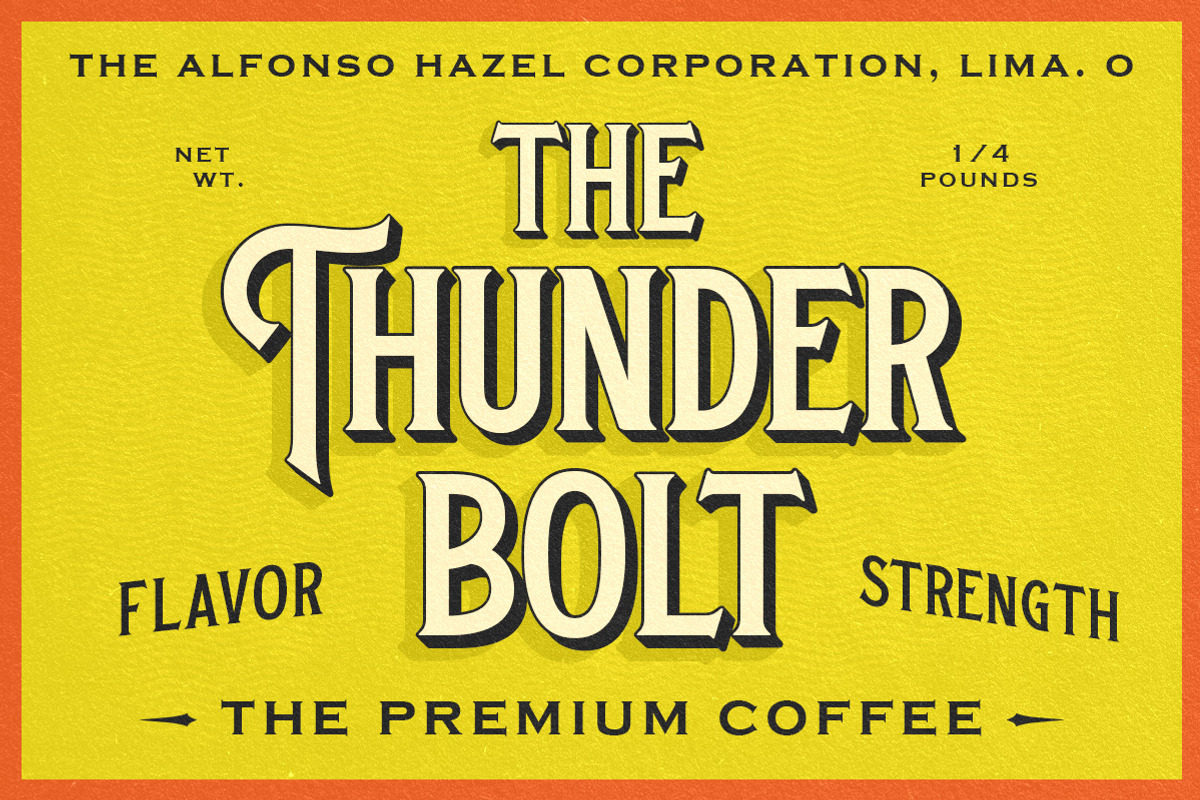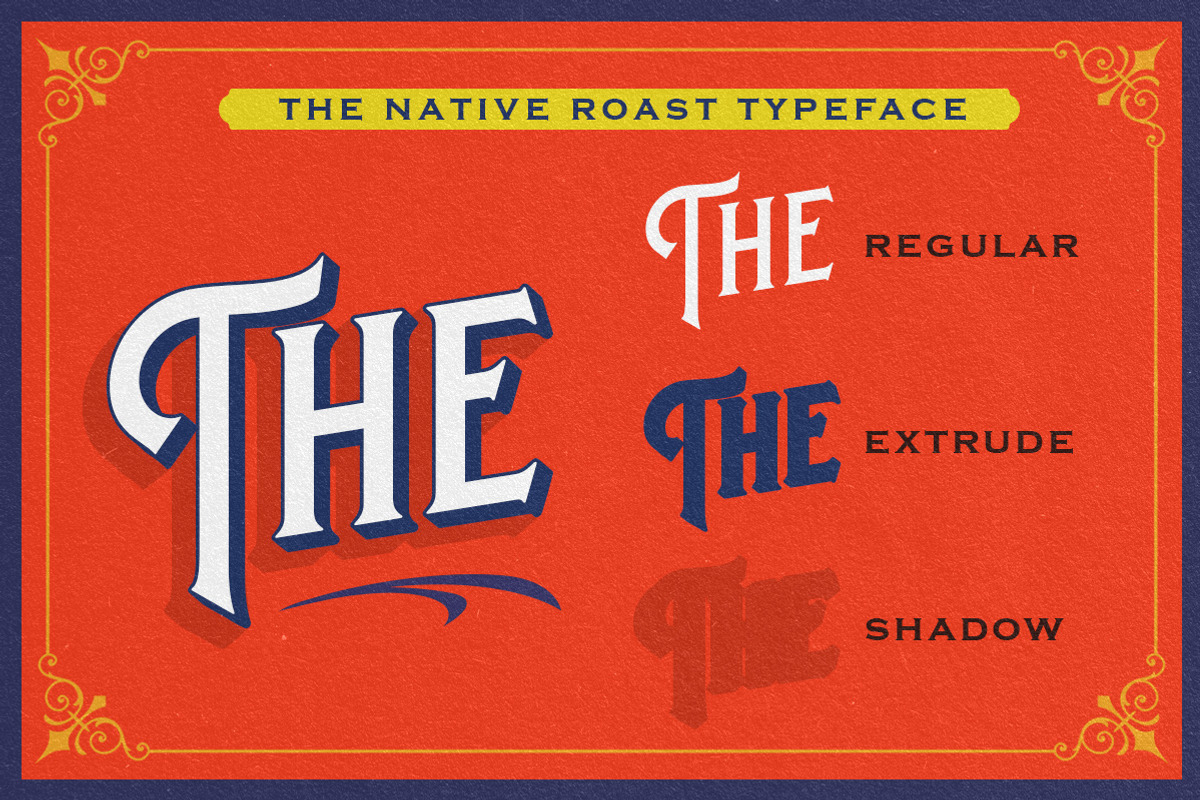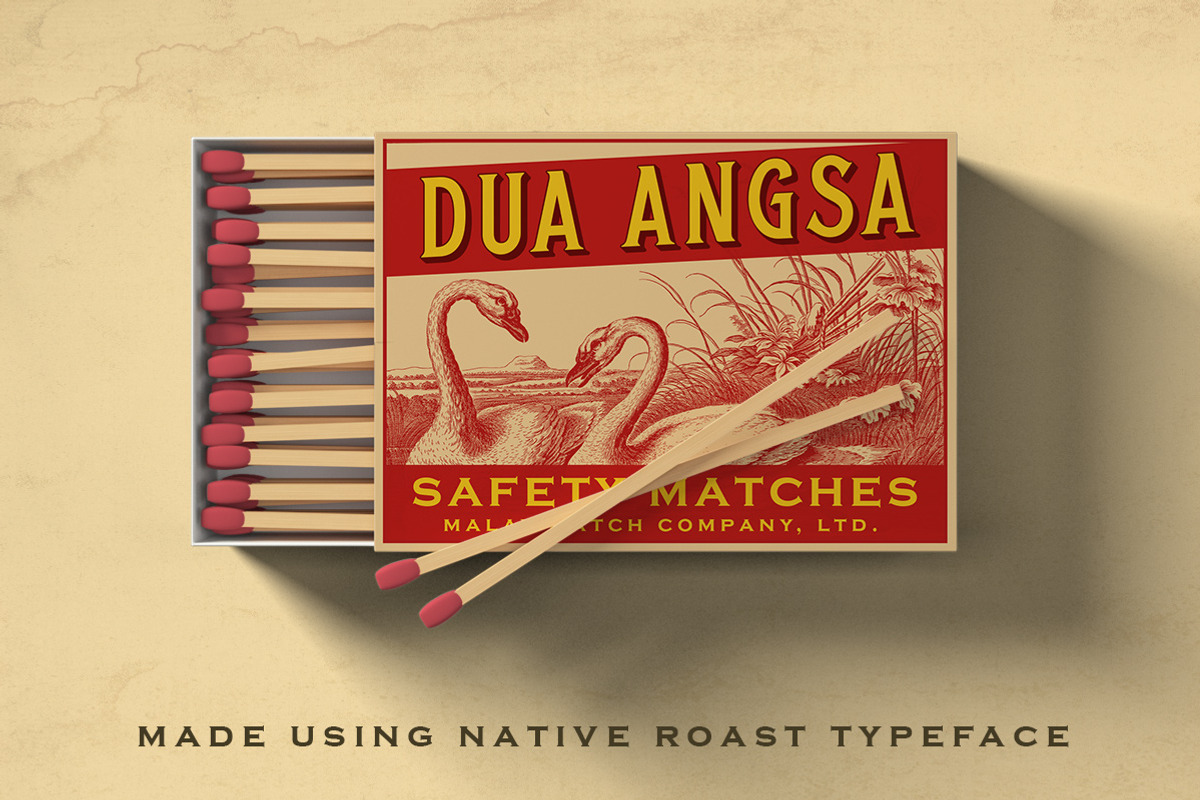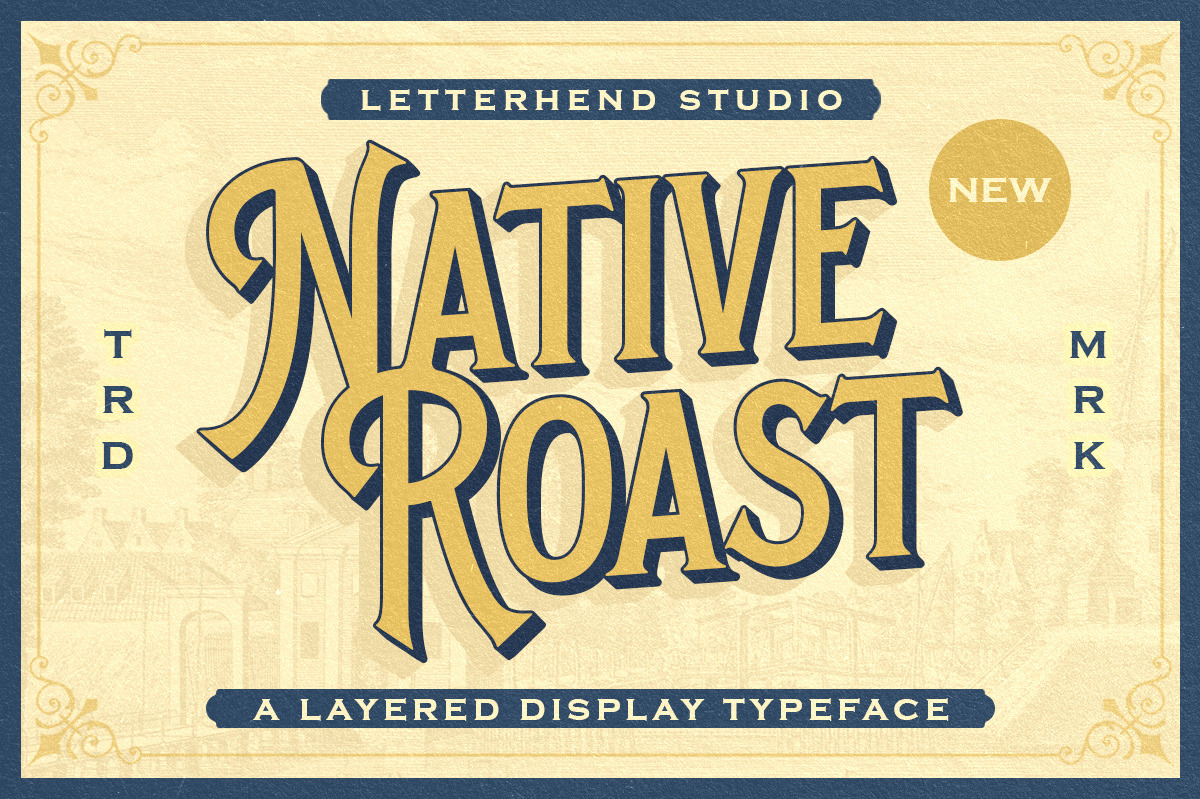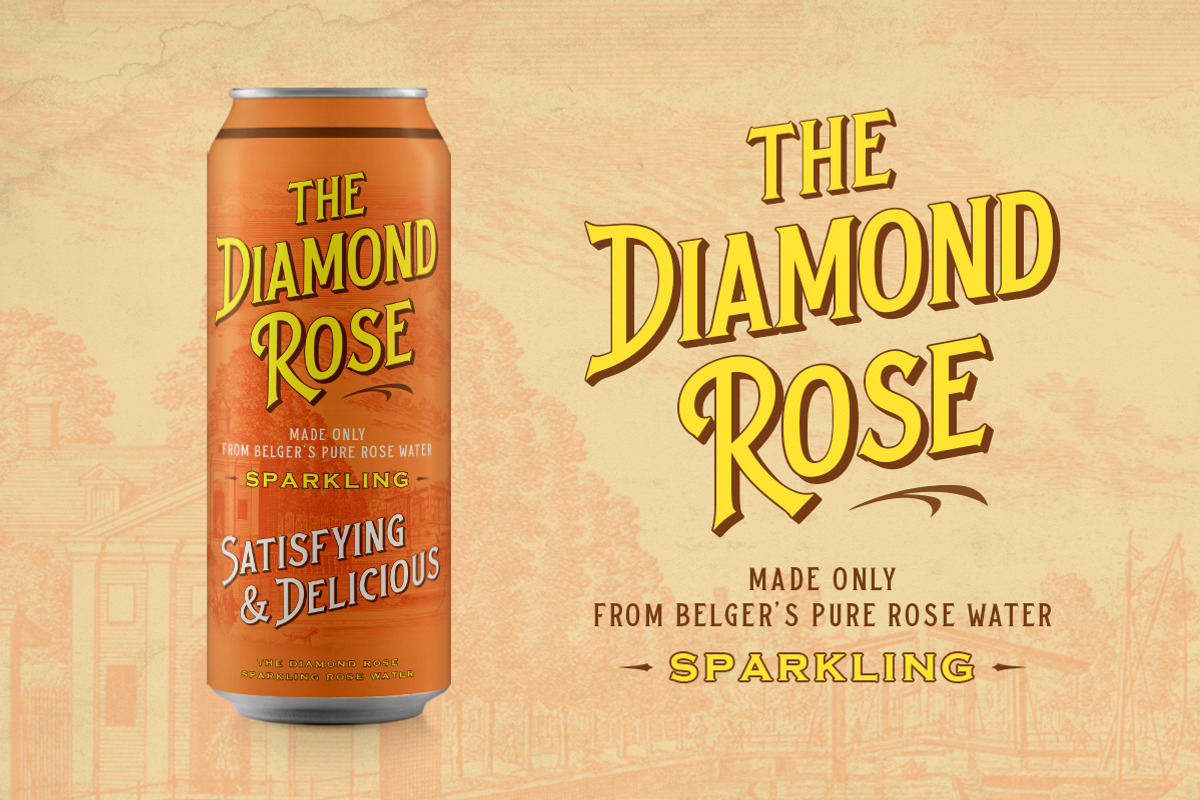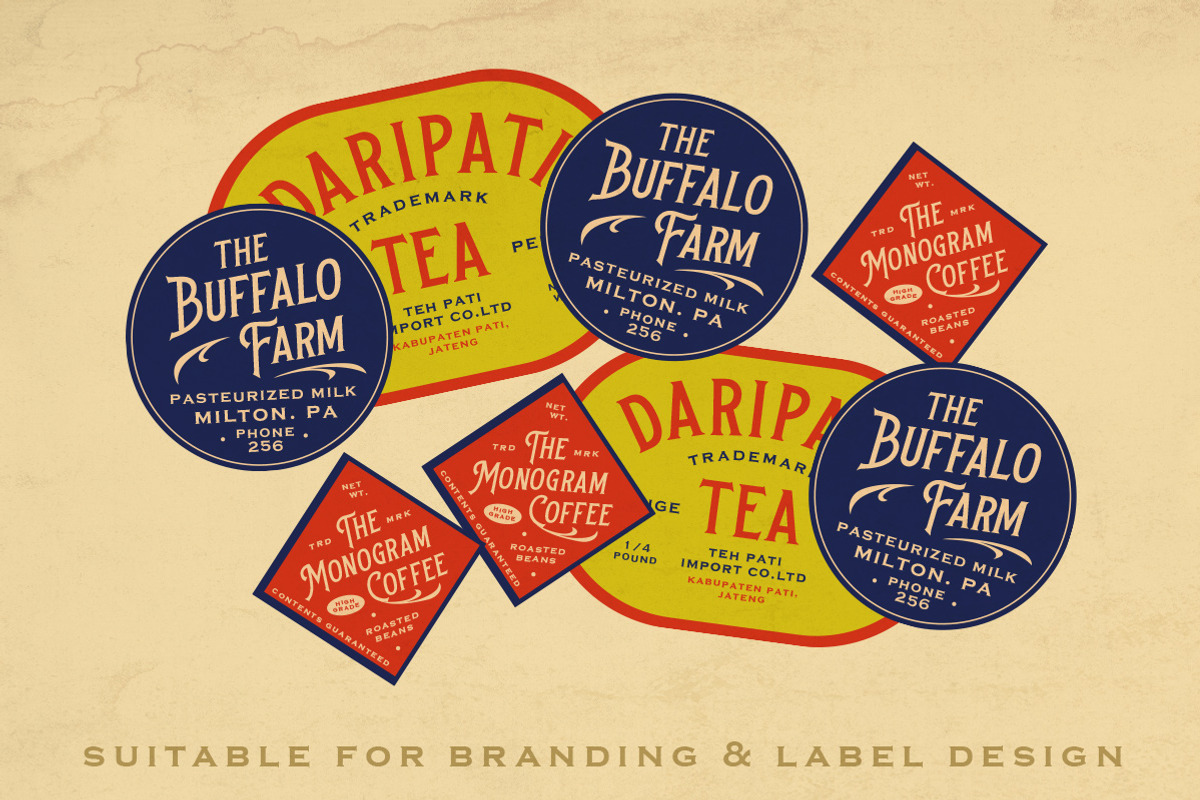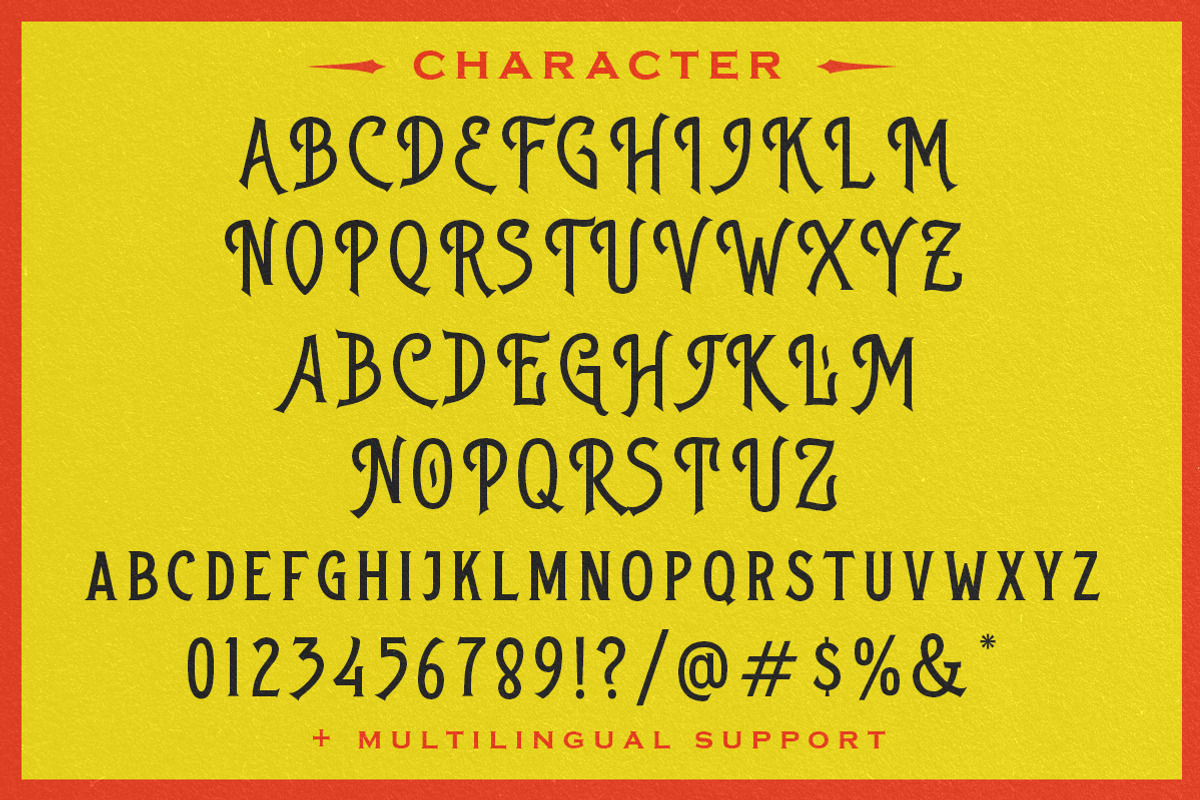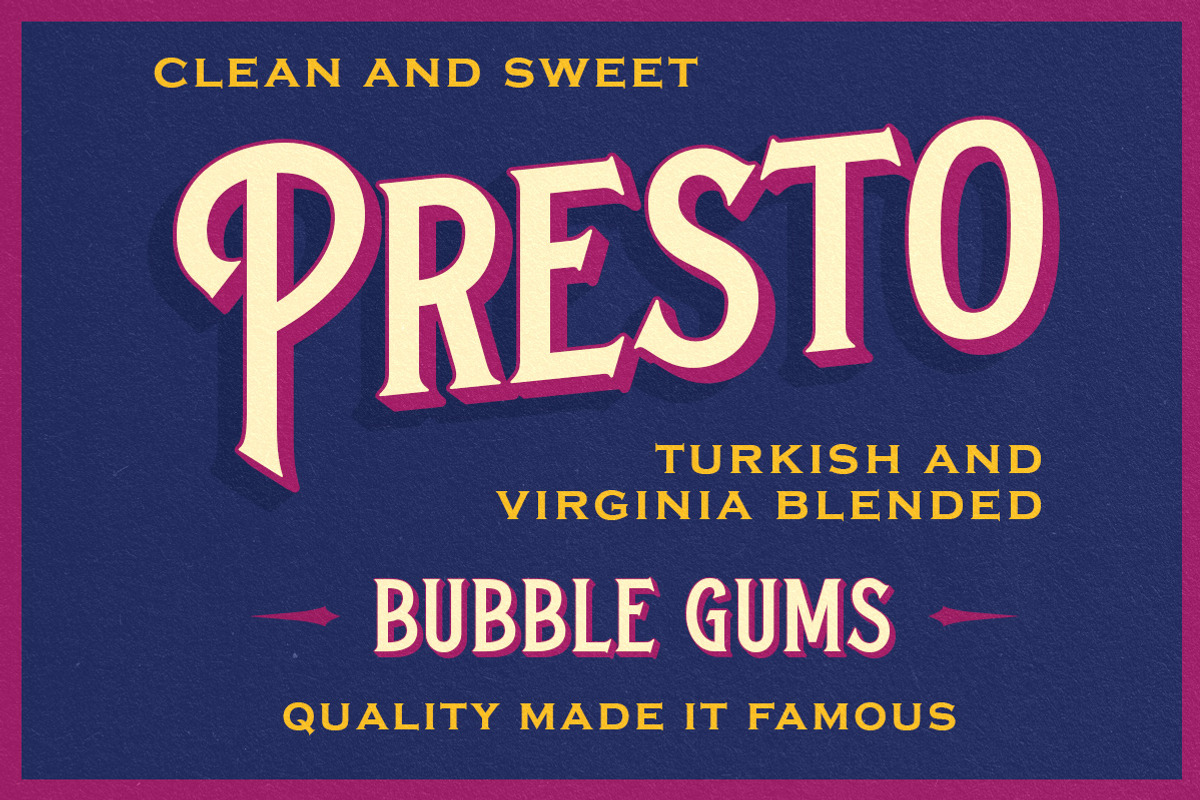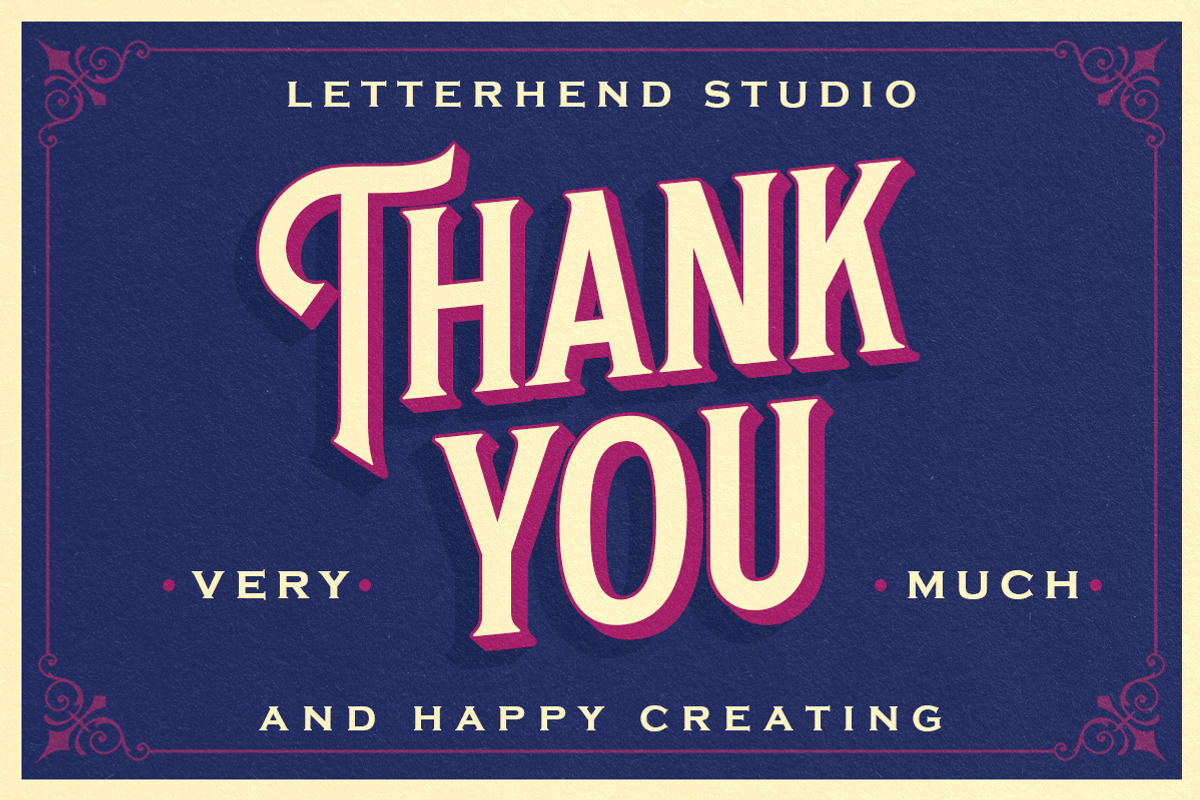
Native Roast - Layered Display Font
Native Roast is a serif font with 3 layered style. You can create vintage 3D look without using any add-on, only with fonts! This font is suitable for a vintage poster, 3d type, or retro Including number and punctuation, also support multi language. This font also contain a bunch of alternates!
- Native Roast Regular, Extrude & Shadow
- uppercase and lowercase
- multilingual & stylistic alteranate